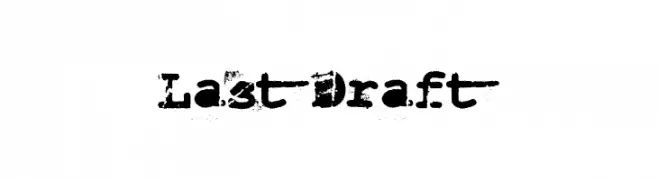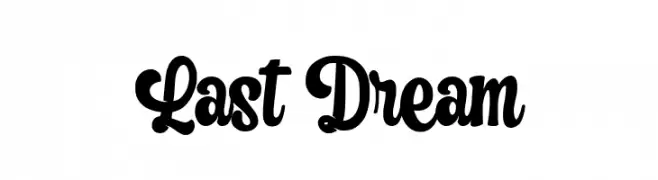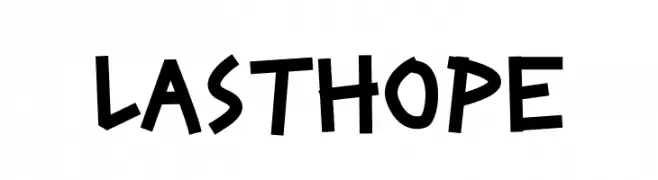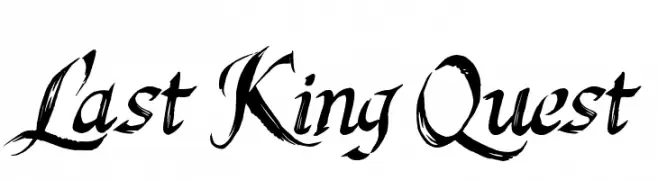
A distressed, bold typewriter-style font with a vintage, grunge aesthetic.
A bold, playful script font with flowing, cursive letterforms.
A bold, playful font with a 3D extruded effect and tight spacing.
A bold, brush-style font with dynamic, hand-painted strokes.
A decorative script font with elegant, flowing lines and intricate loops.
A bold, playful font with a hand-drawn, energetic style.
A dramatic, expressive font with sharp, angular strokes and dynamic flow.
A rugged, hand-drawn font with a distressed and organic appearance.
A rugged, hand-drawn font with a distressed, organic look.